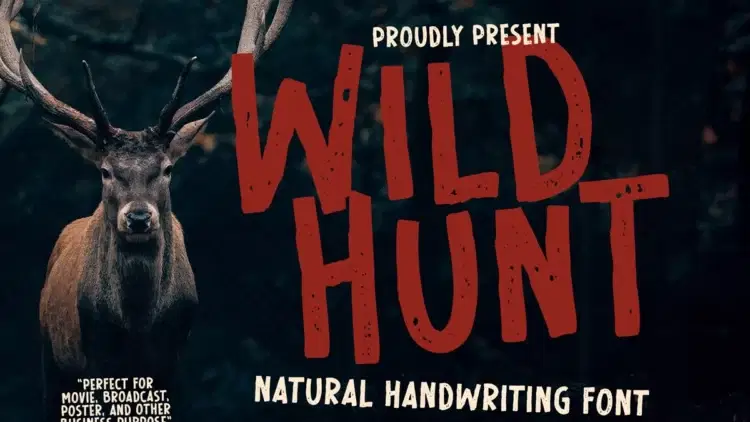
When it comes down to making designs that have a striking and rugged edge, selecting the right font is essential in capturing the essence of the great outdoors. If you’re a designer who wants to convey toughness, endurance and a sense the outdoors, hunting fonts are a great option. They aren’t just used to add visual appeal to a design; they stand out and instantly connect with people who are drawn to nature and the excitement of the hunt.
In contrast to the traditional, refined fonts hunter-themed fonts are designed to make an impact. They’re often used on outdoor signs, clothing and posters for occasions that honor the wild nature. With their strong lines, hefty forms, and a rough design These fonts are great to projects that need a strong visual impact. If you’re working on a commercial endeavor or an individual design hunting fonts offer versatility and also a sense of recall.
Are you ready to bring the outdoors into your work? With this list of the top hunting fonts there’s an assortment of fonts that have been tested and reviewed to aid you in making the best selection. From bold display fonts to more subtle but striking choices, these fonts can help you create your ideal outdoor-themed design. Explore the fonts as striking and frenzied as the landscapes they depict.
9+ Best Hunting Fonts for Capturing the Spirit of the Outdoors
1. Wild Hunt Advertisement Font
Wild Hunt Font brings an imposing, rugged appearance that can be incorporated into designs that are inspired by nature. With its strong and bold style, this font is great for packaging, branding, logos and many other products. Make certain that your designs are distinctive and has a real wild and exciting look.
It was created to convey the wildness of. Wild Hunt Font is an essential typeface for projects that require a powerful visual impact. It brings quality and character to any creative work.
2. Wrong Hunt Font
Wrong Hunt Font is a natural dry brush typeface that gives a the raw, handmade feel in any typeface. Ideal for quotes, logos, posters, and playful letters It adds a natural design to clothing designs as well as other projects that require creativity.
3. Hunting Font
Hunting Font is a beautifully constructed monoline script font with an unpretentious, relaxed vibe ideal to add a dash of rugged appeal to your work. The simple design is ideal for invitations, logos, graphic designs for social media and so on It is a flexible option for all kinds of design requirements.
4. Great Hunt Font
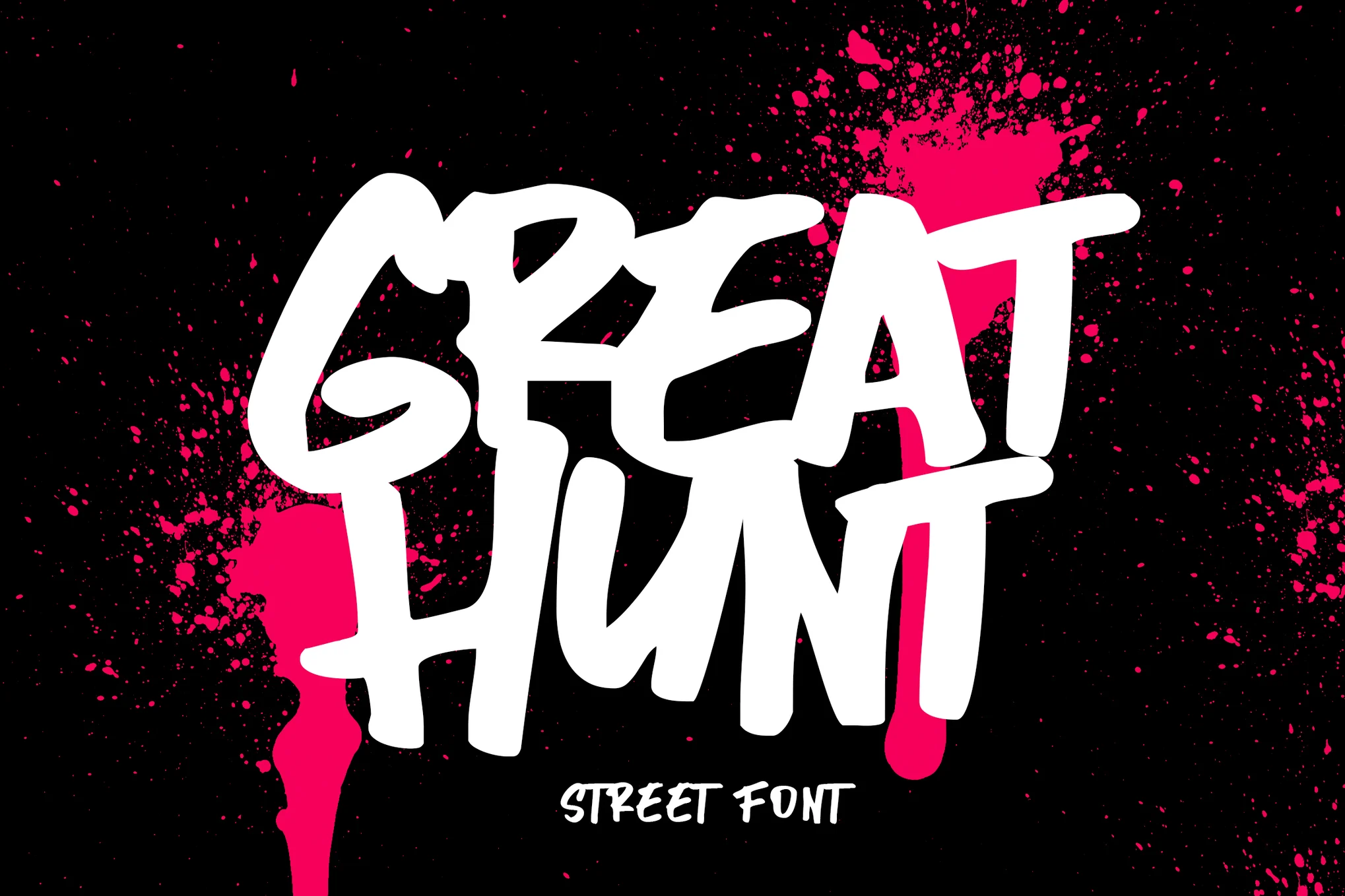
5. Huntly – Blackletter Font
Huntly Font stands out with its striking and evocative blackletter style. It’s perfect for adding an look to your designs. It is ideal for tattoo art and bold logos, posters album covers, and book illustrations, Huntly brings a memorable vintage look to your artistic designs.
Available with each of the OTF in both OTF and TTF formats The typeface’s versatility ensures the ease of use across different platforms. Huntly is a great choice for designers who want to create an impression with its distinctive, gothic-inspired style.
6. Hunting Object Font
Hunting Object provides a unique handwritten monoline design to any design. Its distinctive features and careful design make it an ideal option for headlines, logos and branding. The font comes with stylistic alternatives such as ligatures, uppercase, lowercase numbers, letters and punctuation. This font gives designers the ability to be creative and flexible.
The natural and handmade appearance, Hunting Object adds personality and warmth, which is ideal for projects that seek to reach out to an audience by displaying authenticity and rustic appeal.